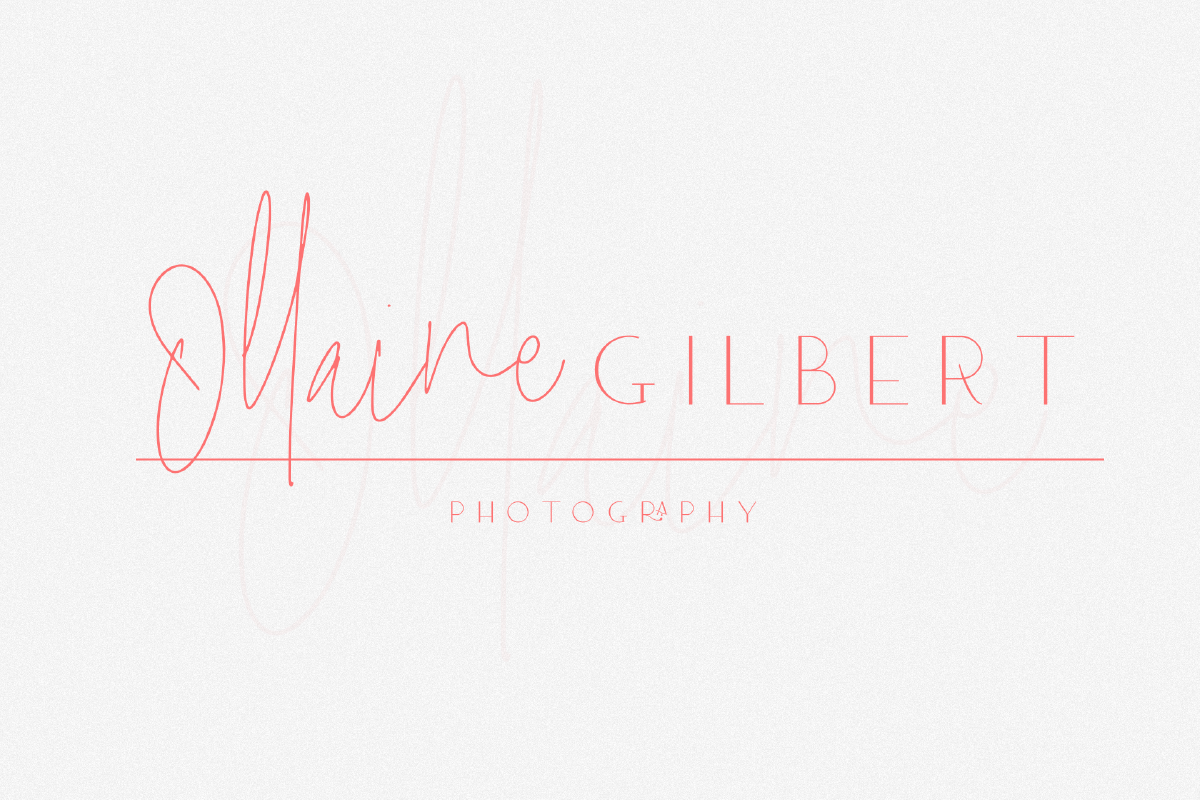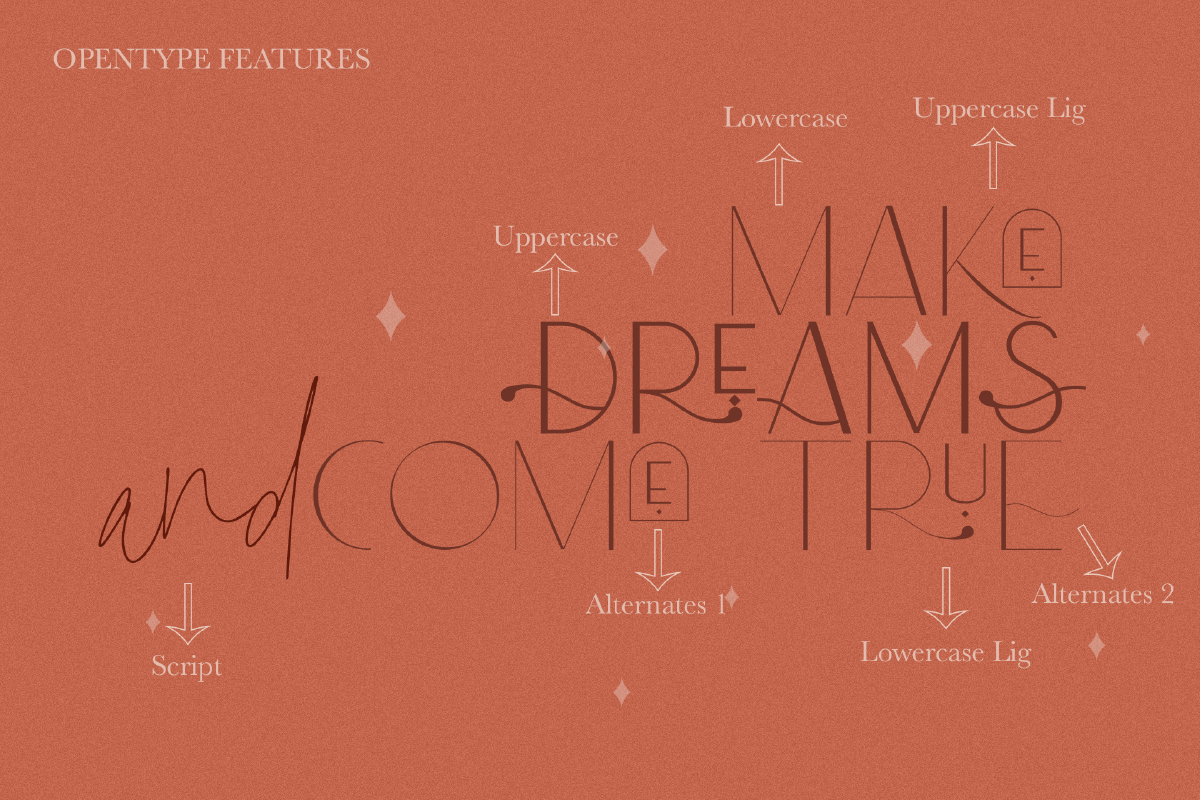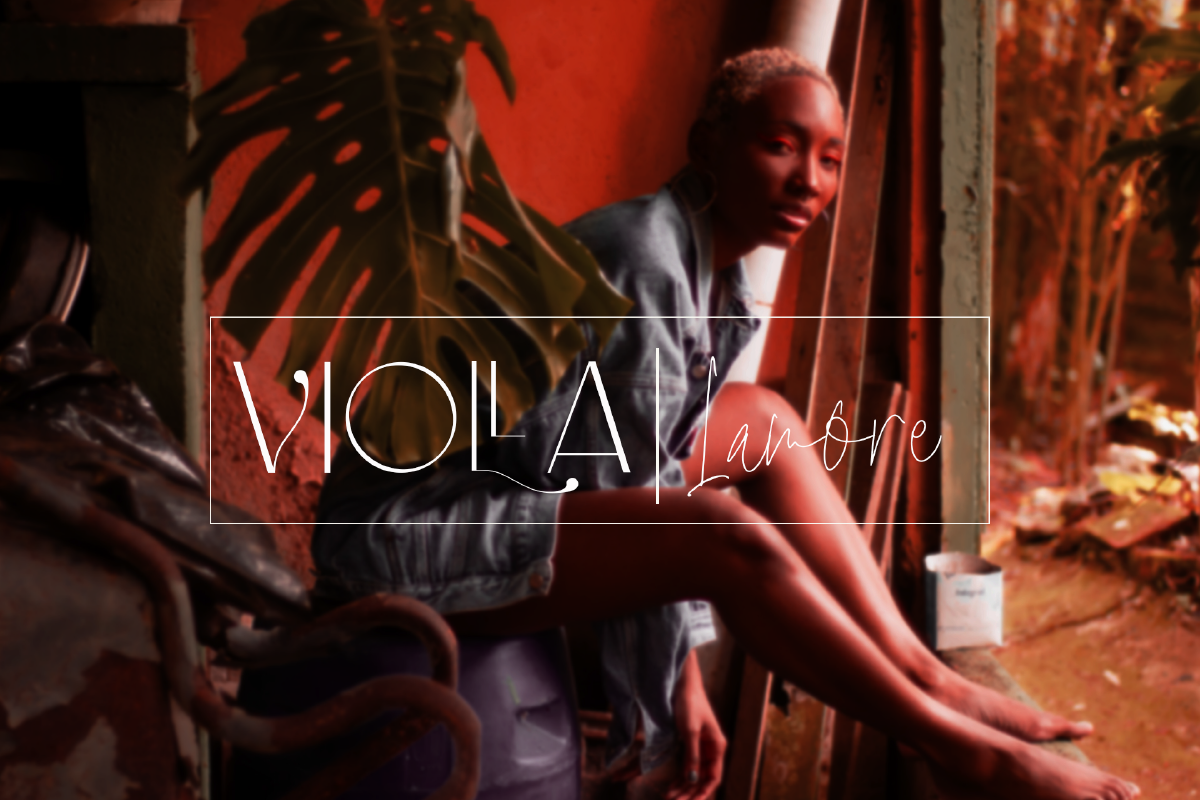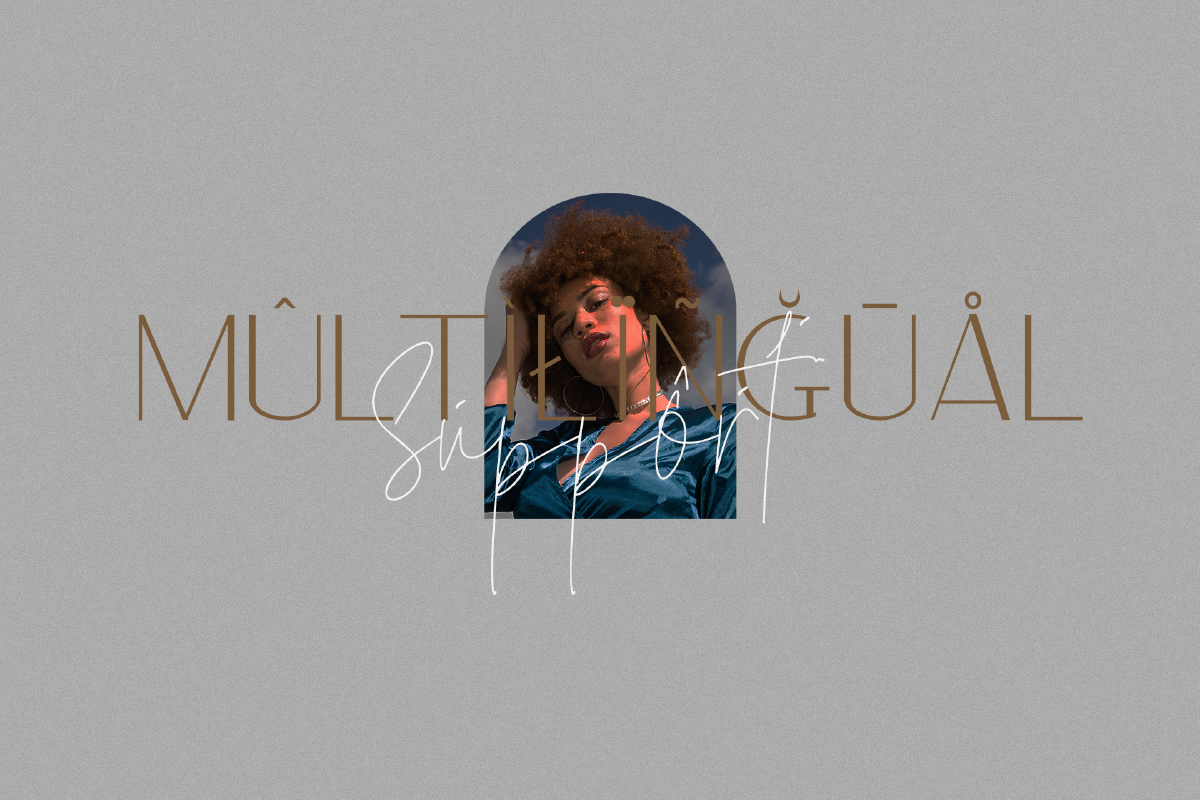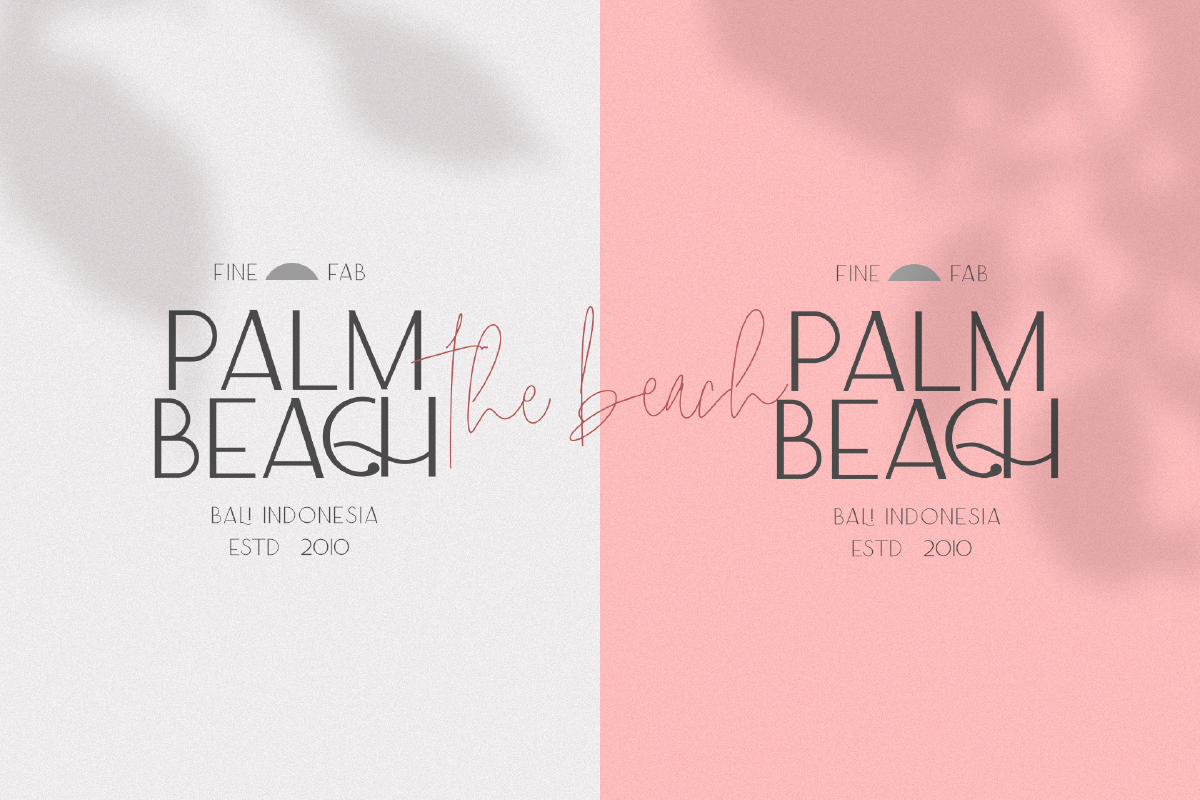
Jello Chlour – Display Font
Jello Chlour – Display Font is here! It is a font with Modern Elegant Style with dainty characters. This is a perfect font for branding, logos, invitation, master-heads and more.